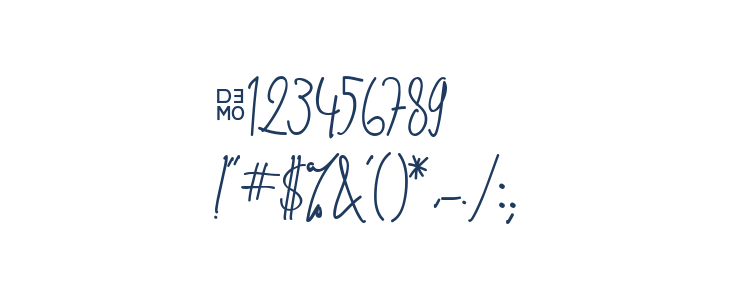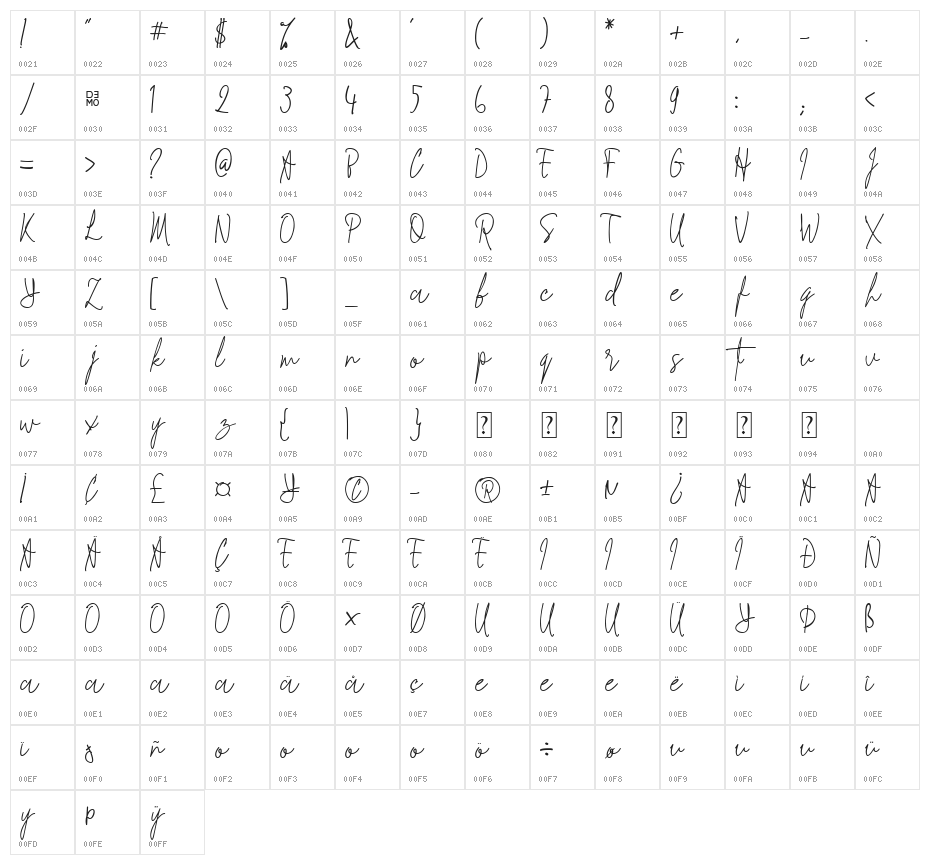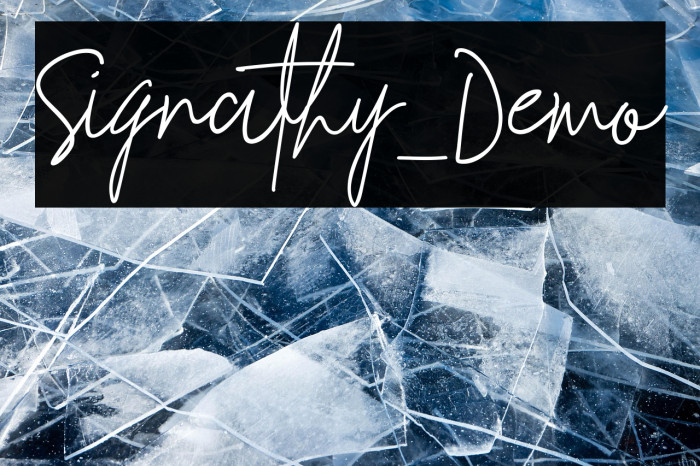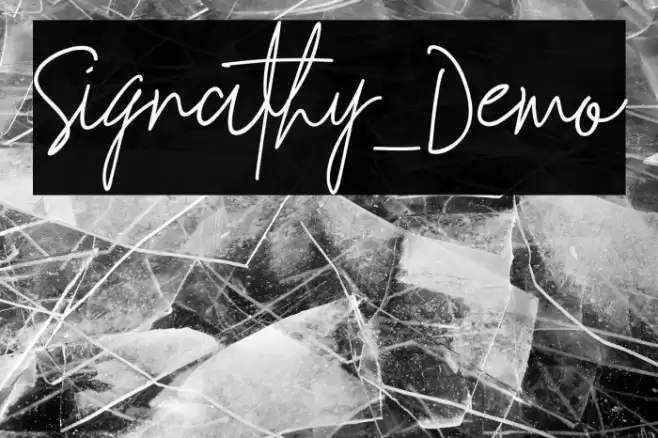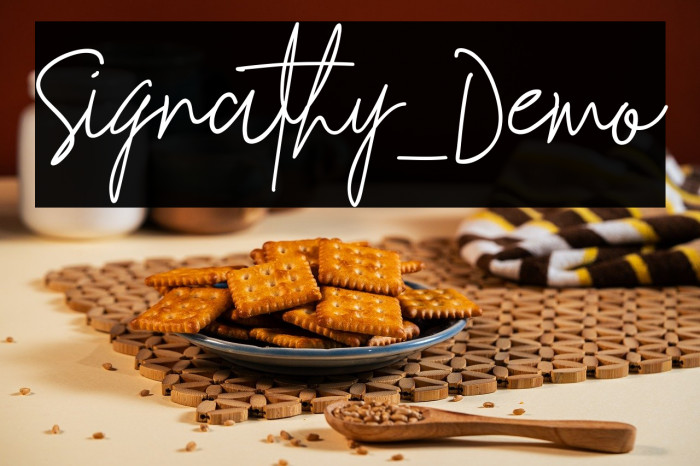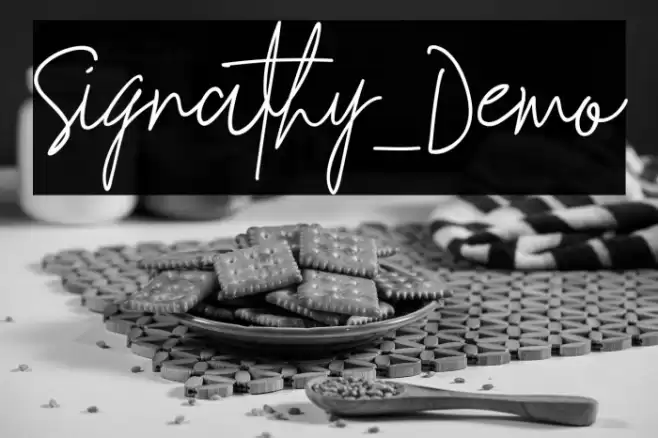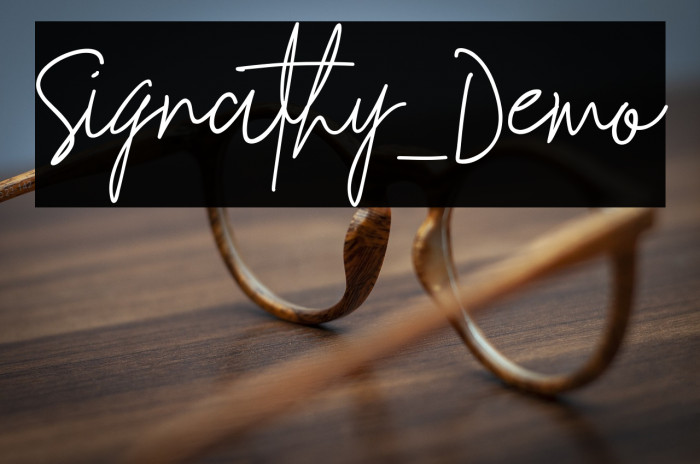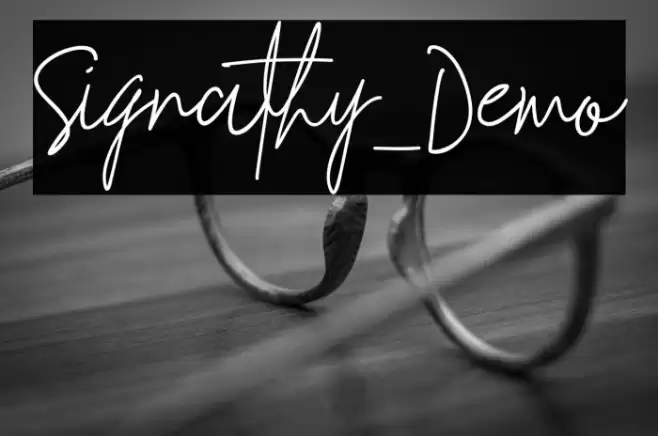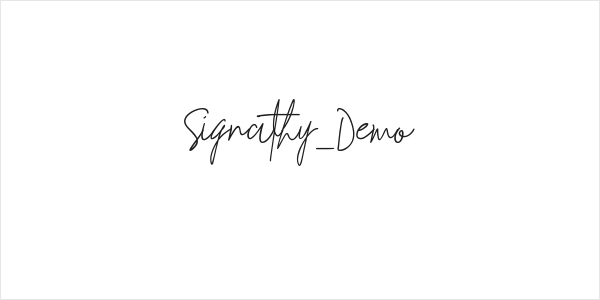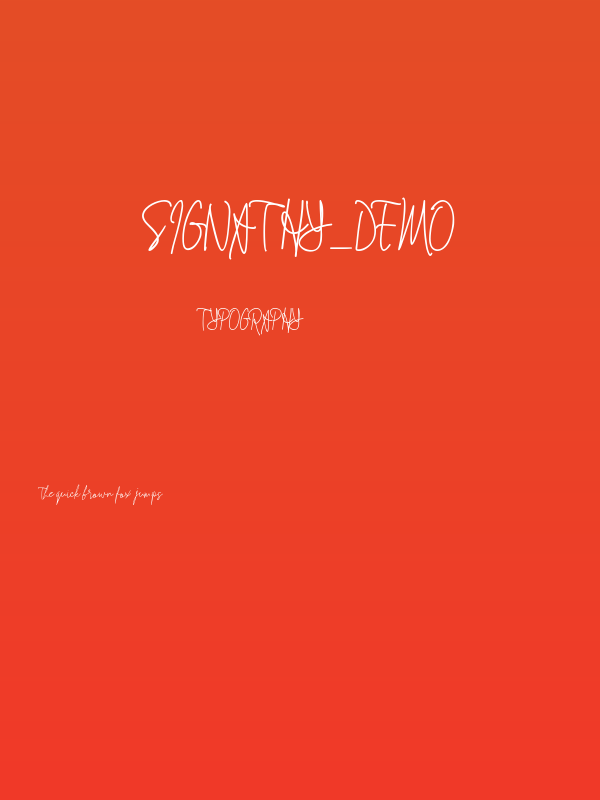
Signathy_Demo Font
Signathy_Demo Description
This font features a dynamic and flowing script style, characterized by its elegant and elongated letterforms. The uppercase letters exhibit a tall and slender appearance, with smooth curves and a slight slant, giving a sense of movement and grace. The lowercase letters maintain a consistent style, complementing the uppercase with their fluid and connected strokes. The numerals are distinct and maintain the same flowing aesthetic, ensuring readability while preserving the overall artistic feel. Special characters are thoughtfully designed to match the script's style, adding versatility to its use. This font's handwritten quality makes it ideal for projects that require a personal and artistic touch.
| Proposed Projects | Ideal for wedding invitations, greeting cards, personal branding, and artistic projects. |